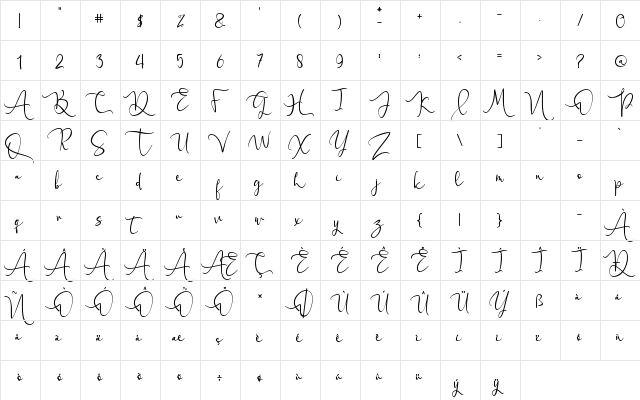
Love Miracle Regular
| Designer | Letterara 2020 |
Design Context for Love Miracle Typeface
Love Miracle is a composed and adaptable typeface that performs quietly and consistently across a wide range of design contexts.